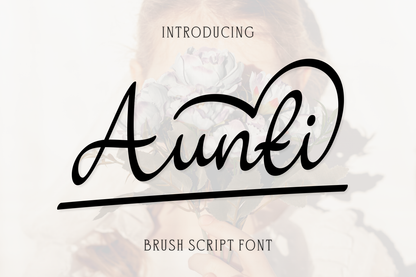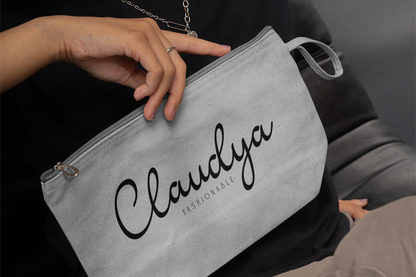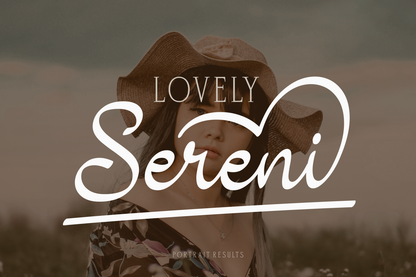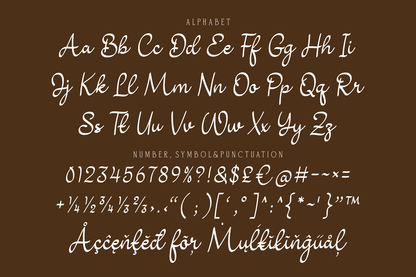
Aunti is a charming brush script font with a smooth, flowing style and a modern heart-shaped flourish that makes it perfect for feminine branding, wedding invites, social media quotes, and boutique packaging. Its handwritten texture adds a personal, heartfelt touch to any design.